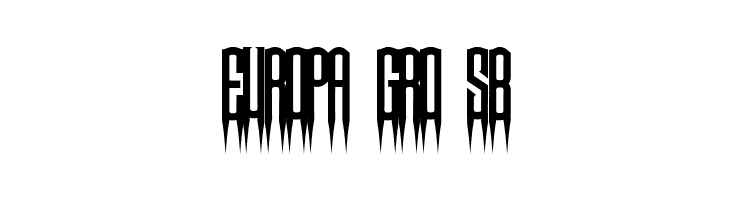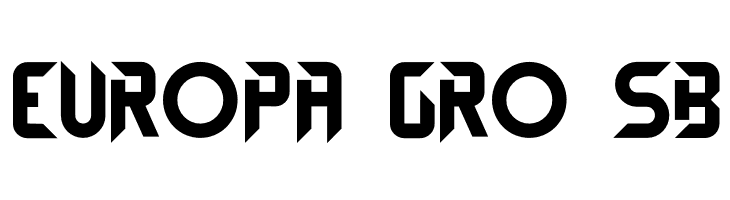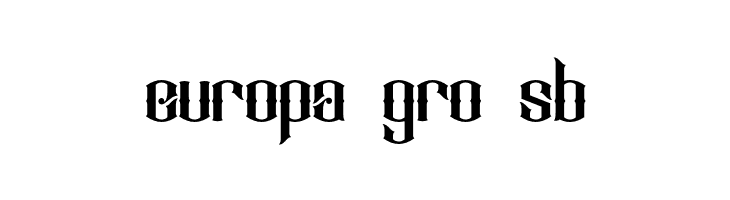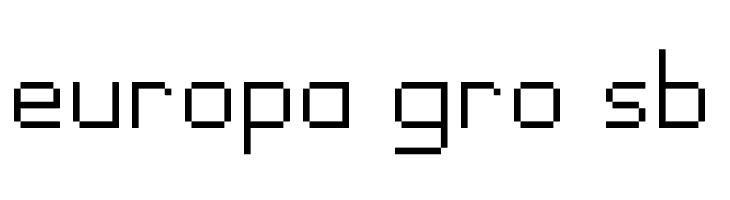
A playful font featuring a variety of fish illustrations as characters.
A bold, spiky font with a dramatic and edgy appearance.
A bold, Blackletter-style font with sharp, angular lines and dramatic flourishes.
A bold, modern font ideal for impactful headlines and designs.
A dynamic script font with fluid, cursive strokes and bold numerals.
An elegant and flowing script font with high contrast and graceful letterforms.
A flowing, cursive font with elegant curves and a handwritten aesthetic.
A bold, Gothic-inspired font with intricate flourishes and sharp edges.
A pixelated, retro-style font ideal for vintage digital designs.